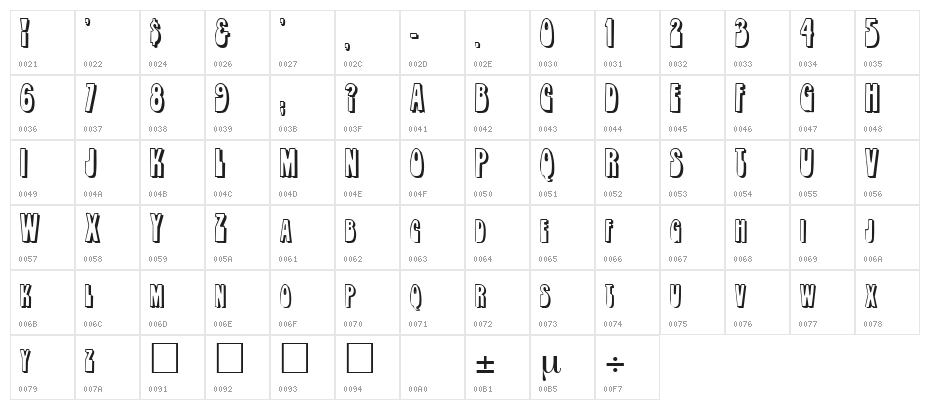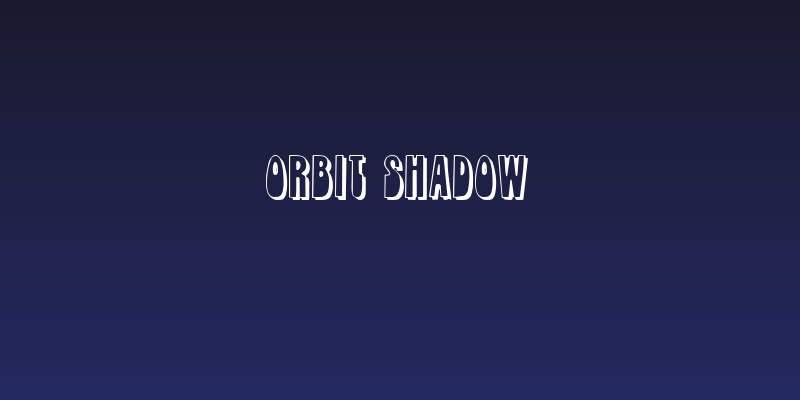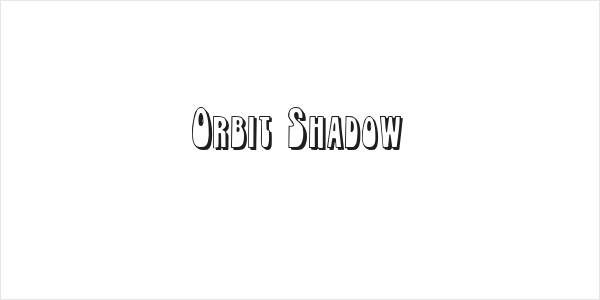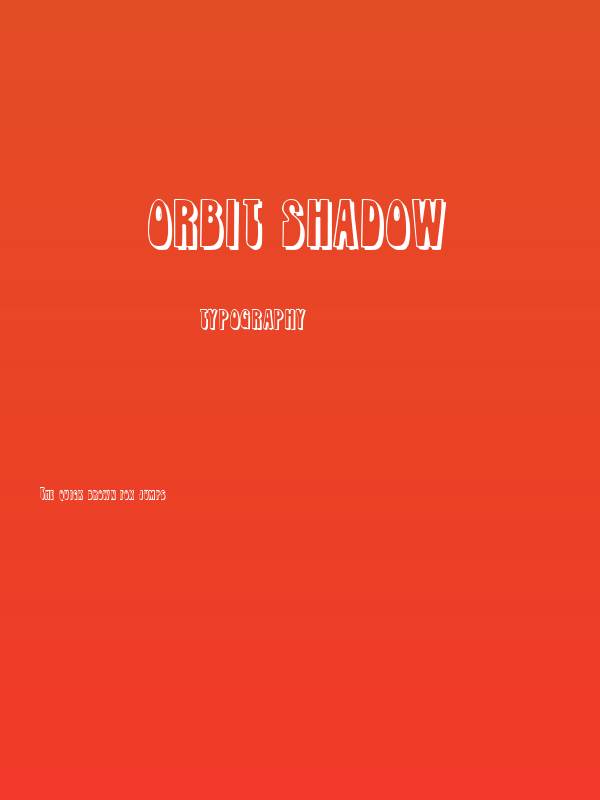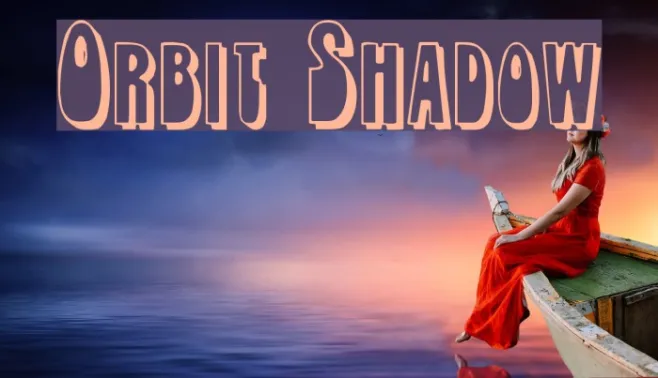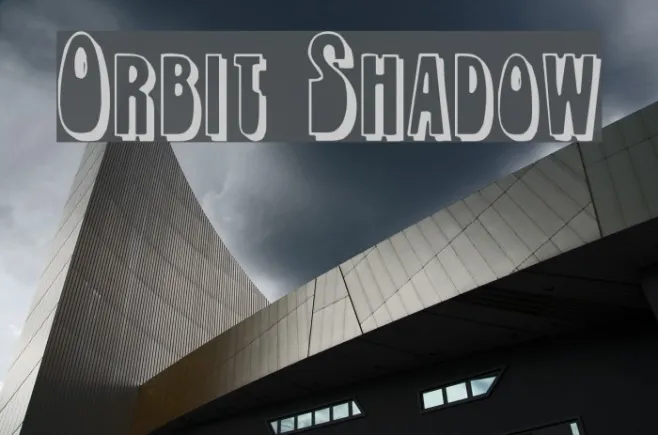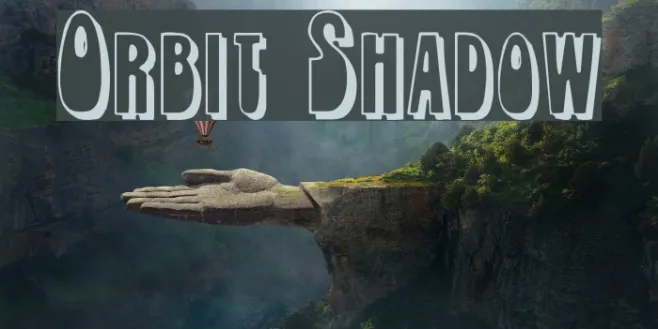
Orbit Shadow Font
Orbit Shadow Description
This font features a bold and playful design with a distinct shadow effect that gives it a three-dimensional appearance. The uppercase letters are robust and commanding, while the lowercase letters maintain a consistent style, ensuring readability. The numbers and special characters follow the same design principles, making them cohesive with the alphabet. The shadow effect adds depth, making it ideal for eye-catching designs. Its unique style is perfect for projects that require a fun and engaging look.
| Proposed Projects | Ideal for posters, headlines, children's books, and playful branding projects. |